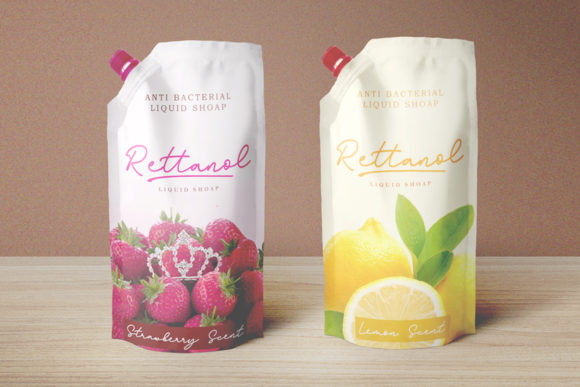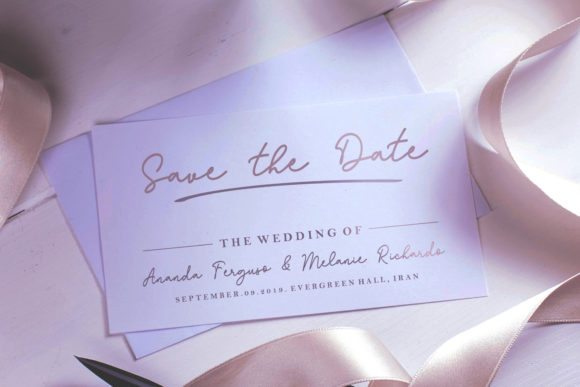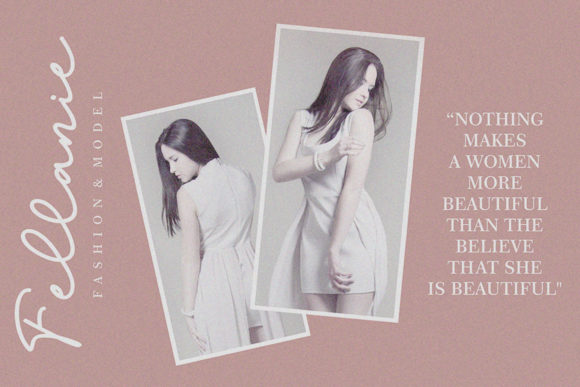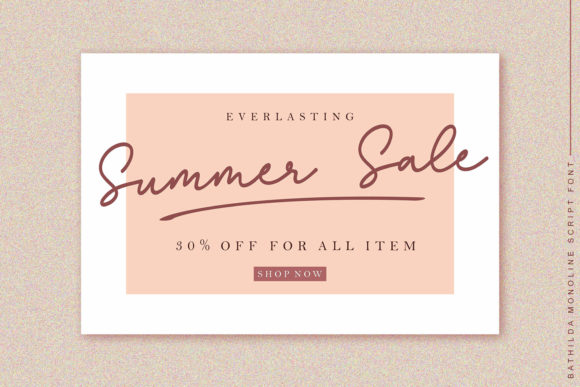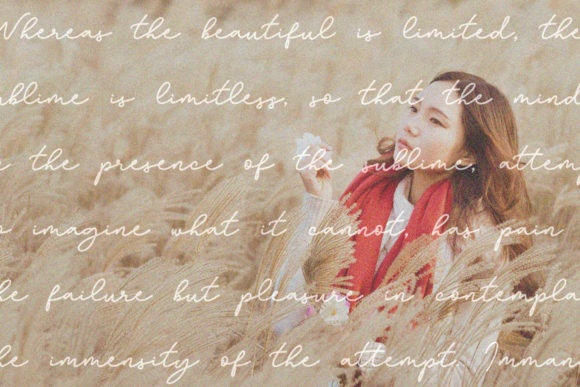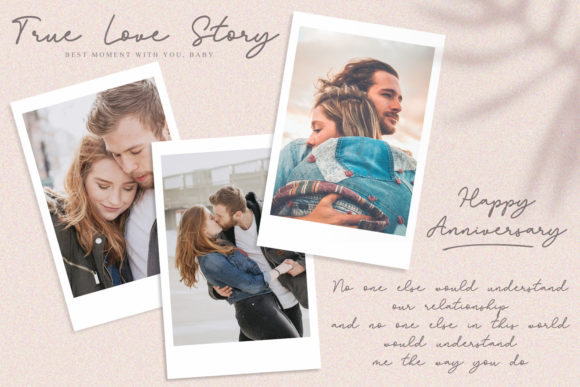
Bathilda Font: Elevate Your Crafts with Elegance
Are you a designer or crafter looking for a font that exudes elegance and sophistication? Look no further than the Bathilda font. This stunning monoline script font is perfect for adding a personal touch to any crafts project, and its exceptional readability makes it a versatile choice for a wide range of applications.
What is Bathilda Font?
Bathilda is a beautifully crafted monoline script font that boasts an elegant style, making it ideal for projects that require a touch of sophistication. The font’s monoline design ensures that each letter is connected, creating a fluid and harmonious look that is both visually appealing and easy to read.
Key Features of Bathilda Font
- Elegant Style: Bathilda’s elegant design makes it perfect for projects that require a sophisticated look, such as wedding invitations, branding materials, and crafts.
- Good Readability: The font’s clear and concise design ensures that it remains readable even at smaller sizes, making it suitable for a wide range of applications.
- Monoline Script: The monoline script design gives Bathilda a unique and stylish look that sets it apart from other fonts.
- Personal Feel: Bathilda’s elegant and cursive design adds a personal touch to any crafts project, making it perfect for DIY enthusiasts and small business owners.
Uses for Bathilda Font
Bathilda’s versatility makes it suitable for a wide range of projects, including:
- Crafts: Use Bathilda to add a personal touch to your crafts projects, such as handmade cards, gift tags, and scrapbooking.
- Wedding Invitations: The font’s elegant design makes it perfect for wedding invitations, save-the-date cards, and other wedding-related materials.
- Branding: Use Bathilda to create sophisticated branding materials, such as logos, business cards, and letterheads.
- Digital Projects: Bathilda can be used for digital projects, such as social media graphics, blog posts, and website headers.
Why Choose Bathilda Font?
With so many fonts available, why choose Bathilda? Here are just a few reasons:
- Unique Design: Bathilda’s monoline script design sets it apart from other fonts, making it a great choice for designers and crafters looking for a unique look.
- Ease of Use: The font is easy to read and works well in a variety of contexts, making it a versatile choice for a wide range of projects.
- Elegant Style: Bathilda’s elegant design ensures that your projects will look sophisticated and professional.
Tips for Using Bathilda Font
Here are a few tips for getting the most out of Bathilda:
- Pair with Other Fonts: Bathilda pairs well with other fonts, such as sans-serif fonts, to create a visually appealing contrast.
- Experiment with Sizes: Don’t be afraid to experiment with different font sizes to create visual interest and hierarchy.
- Use for Headings and Titles: Bathilda is perfect for headings and titles, where its elegant design can really shine.
In conclusion, Bathilda font is a stunning monoline script font that is perfect for designers and crafters looking to add a touch of elegance to their projects. With its good readability, elegant style, and versatility, Bathilda is a great choice for a wide range of applications. Whether you’re working on a crafts project, wedding invitation, or branding materials, Bathilda is sure to impress.